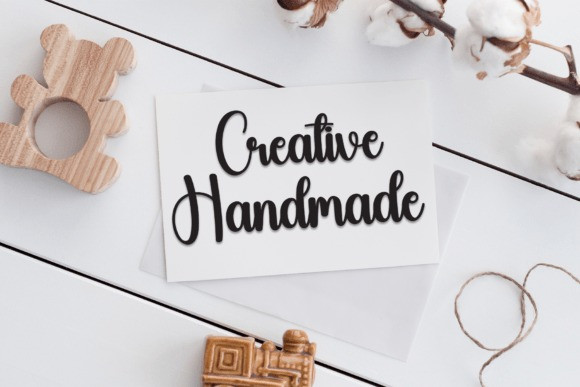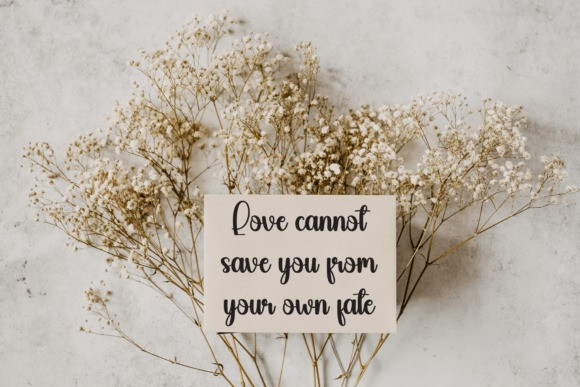
Booklove Script Font
Booklove Script Font is a sweet and friendly handwritten display font. Cute and fun, this font is ideal for writing wedding invitations, cards, or any other design that might need a fun touch!